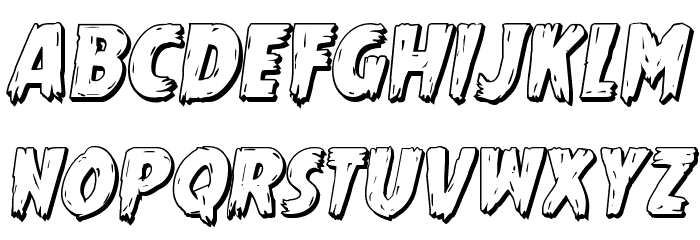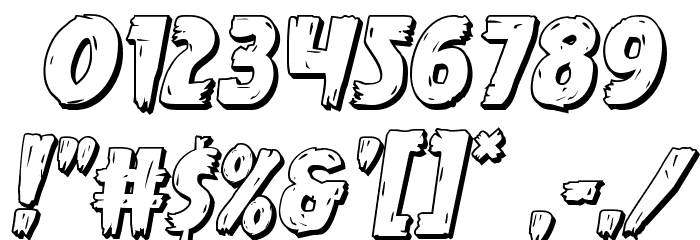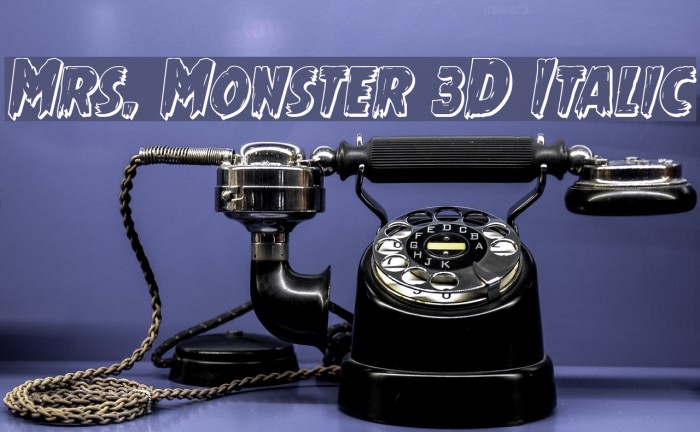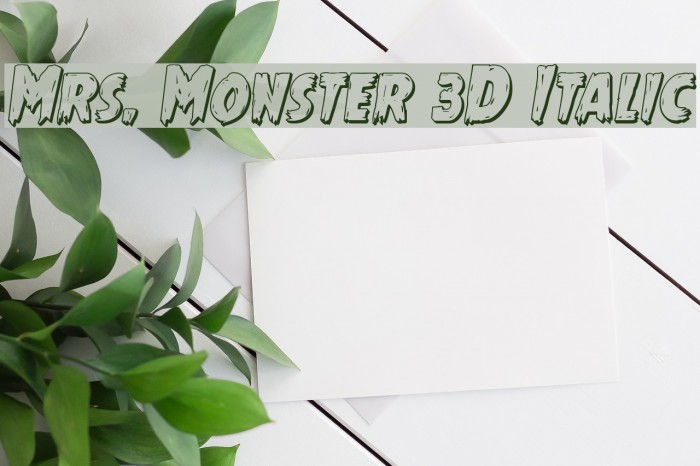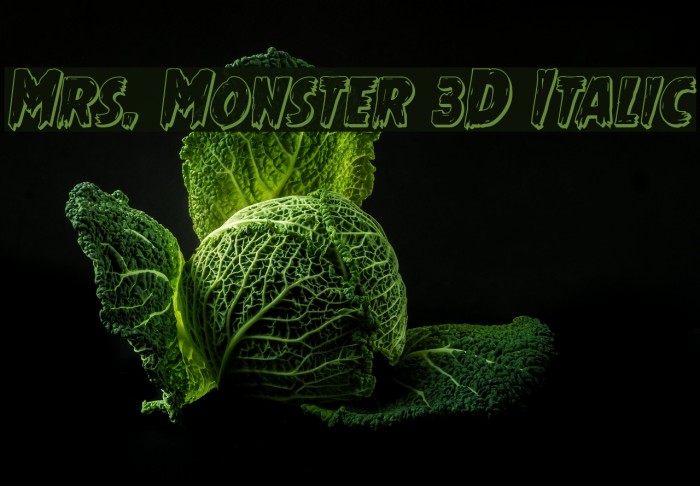
Mrs. Monster 3D Italic Font
This font features a bold, three-dimensional appearance with a playful and slightly chaotic style. The letters are italicized, giving them a dynamic and energetic feel. Each character has a rough, textured edge that adds to its quirky and fun personality. The font is highly decorative, making it ideal for creative and eye-catching designs. Its unique style is reminiscent of comic book lettering, with exaggerated forms and a sense of movement. The boldness of the font ensures it stands out, while the 3D effect adds depth and interest.
A bold, 3D italic font with a playful, comic book style.
- Proposed Projects: Ideal for comic books, posters, Halloween-themed designs, and playful branding.